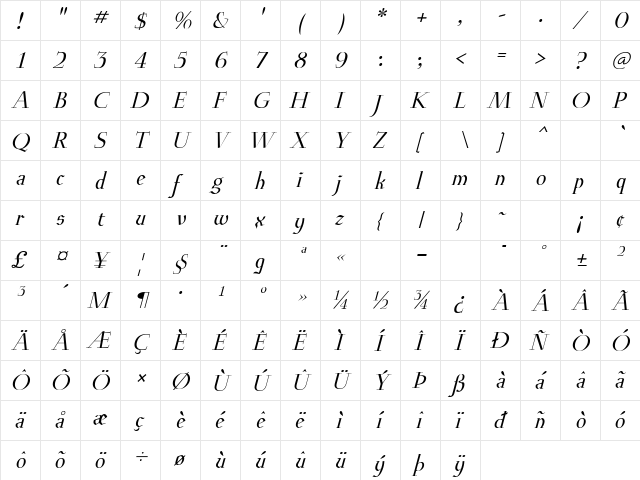
Euroika Italic
Design Context for Euroika Typeface
Euroika takes a measured approach to typography — its balanced proportions and neutral character make it a reliable workhorse for both digital and print work. Its italic angle brings a sense of urgency and motion to the letterforms.
Pro Tip: Use Euroika for emphasis, pull quotes, and subheadings where its slanted energy can add rhythm to the layout.